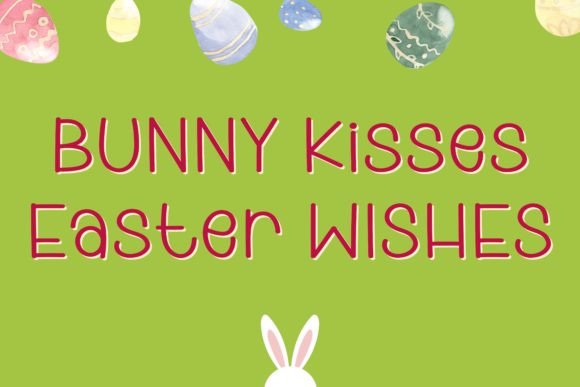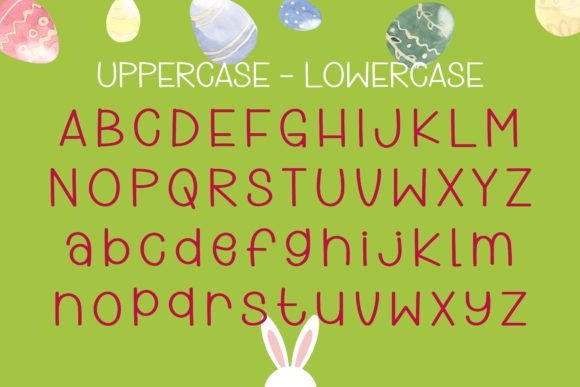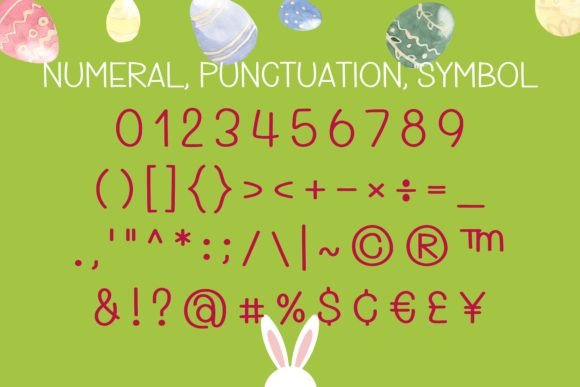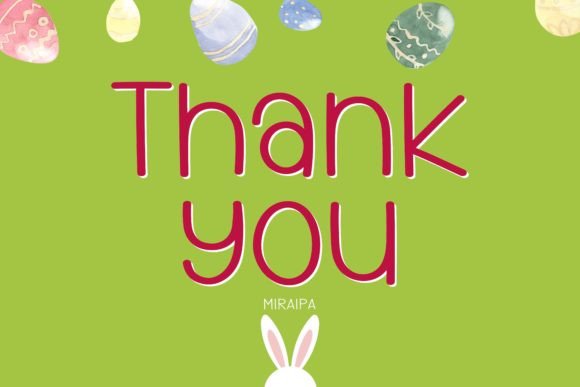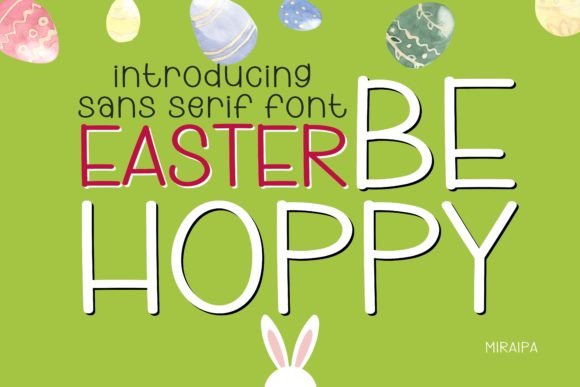
Easter Be Hoppy Font: The Perfect Addition to Your Font Library
Are you looking for a font that can add a touch of friendliness and cuteness to your designs? Look no further than the Easter Be Hoppy font! This handwritten sans serif font is perfect for designers and crafters who want to elevate their creations with a unique and playful twist.
What Makes Easter Be Hoppy Font So Special?
Easter Be Hoppy font is a friendly and cute handwritten sans serif font that can be used for a wide range of design projects. Its unique and playful style makes it perfect for Easter-themed designs, but it’s also versatile enough to be used for other projects, such as:
- Party invitations and decorations
- Product labels and packaging
Key Features of Easter Be Hoppy Font
Here are some of the key features that make Easter Be Hoppy font an incredible asset to your font library:
- Handwritten sans serif style: Easter Be Hoppy font has a unique handwritten sans serif style that gives it a friendly and approachable feel.
- Cute and playful: The font’s cute and playful style makes it perfect for designs that require a touch of whimsy and fun.
- Versatile: Easter Be Hoppy font can be used for a wide range of design projects, from Easter-themed designs to other projects that require a playful twist.
- Easily readable: The font is easily readable, even at small sizes, making it perfect for use in a variety of design projects.
How to Use Easter Be Hoppy Font in Your Designs
Using Easter Be Hoppy font in your designs is easy! Here are some tips to get you started:
- Pair it with other fonts: Easter Be Hoppy font pairs well with other sans serif fonts, as well as script fonts, to create a unique and interesting contrast.
- Use it for headings and titles: The font’s playful style makes it perfect for use in headings and titles, where you want to grab the reader’s attention.
- Add some color: Easter Be Hoppy font looks great in a variety of colors, from bright and bold to pastel and soft.
- Experiment with different sizes: The font is easily readable at a range of sizes, so don’t be afraid to experiment with different sizes to create visual interest.
Why Designers and Crafters Love Easter Be Hoppy Font
Designers and crafters love Easter Be Hoppy font for a variety of reasons, including:
- Its unique style: Easter Be Hoppy font has a unique and playful style that sets it apart from other fonts.
- Its versatility: The font can be used for a wide range of design projects, from Easter-themed designs to other projects that require a playful twist.
- Its ease of use: Easter Be Hoppy font is easy to use and can be paired with other fonts to create a unique and interesting contrast.
Easter Be Hoppy font is a friendly and cute handwritten sans serif font that is perfect for designers and crafters who want to add a touch of whimsy and fun to their designs. Its unique and playful style makes it perfect for Easter-themed designs, but it’s also versatile enough to be used for other projects. With its easily readable style and versatility, Easter Be Hoppy font is an incredible asset to your font library.